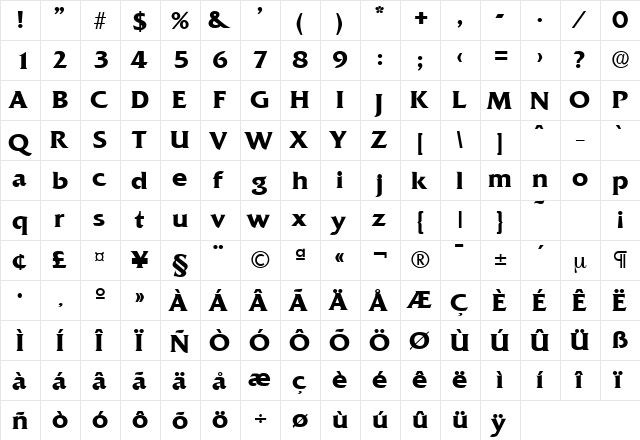
Quadrat-Serial Bold
Design Context for Quadrat-Serial Typeface
Quadrat-Serial takes a measured approach to typography — its balanced proportions and neutral character make it a reliable workhorse for both digital and print work. Its bold stroke weight gives it real presence on the page.